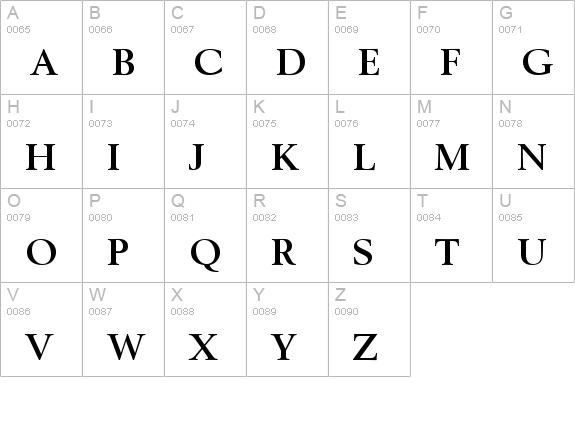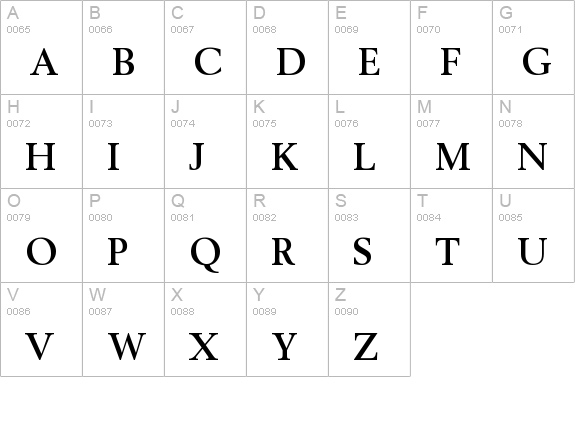
Berling Antiqua Bold is a strong, high-contrast variant in the Berling typeface family \xE2\x80\x94 well suited to headlines, attention-grabbing titles, and strong calls-to-action.
Berling Antiqua Bold is a sophisticated and timeless font that exudes elegance and authority. Its bold weight commands attention while maintaining a sense of refinement and classic beauty. The sturdy serifs and sleek curves give this typeface a strong presence, making it ideal for headlines, titles, and other prominent design elements. What sets Berling Antiqua Bold apart is its versatility - it can be used in various design applications, from print materials to digital projects, without losing its impact. Whether you're designing a book cover, a poster, or a website header, this font will make a statement and elevate your design to a new level of sophistication. And the best part? Berling Antiqua Bold is completely free to download at FontsMarket.com. This means you can add this premium font to your collection without any cost, making it an excellent choice for designers on a budget or those looking to experiment with a new typeface. Don't miss out on the opportunity to enhance your projects with the timeless beauty of Berling Antiqua Bold - download it today and see the difference it can make in your designs.